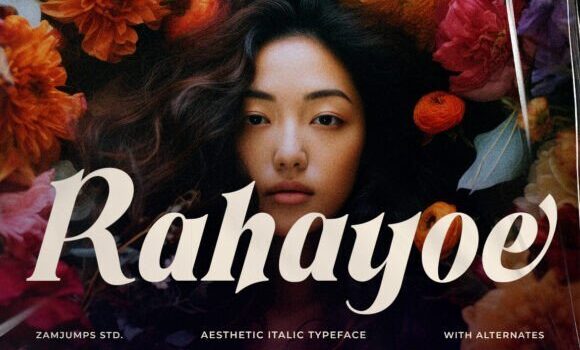
rahayoe
Rahayoe Font - Featured Image
Rahayoe Font – Free Download Introduction to Rahayoe Font Rahayoe is an elegant cursive-inspired font designed to bring a touch of sophistication and aesthetic style to any project. 📸 Preview Gallery 6 images 📌 Product Name Rahayoe Font 👤 Author